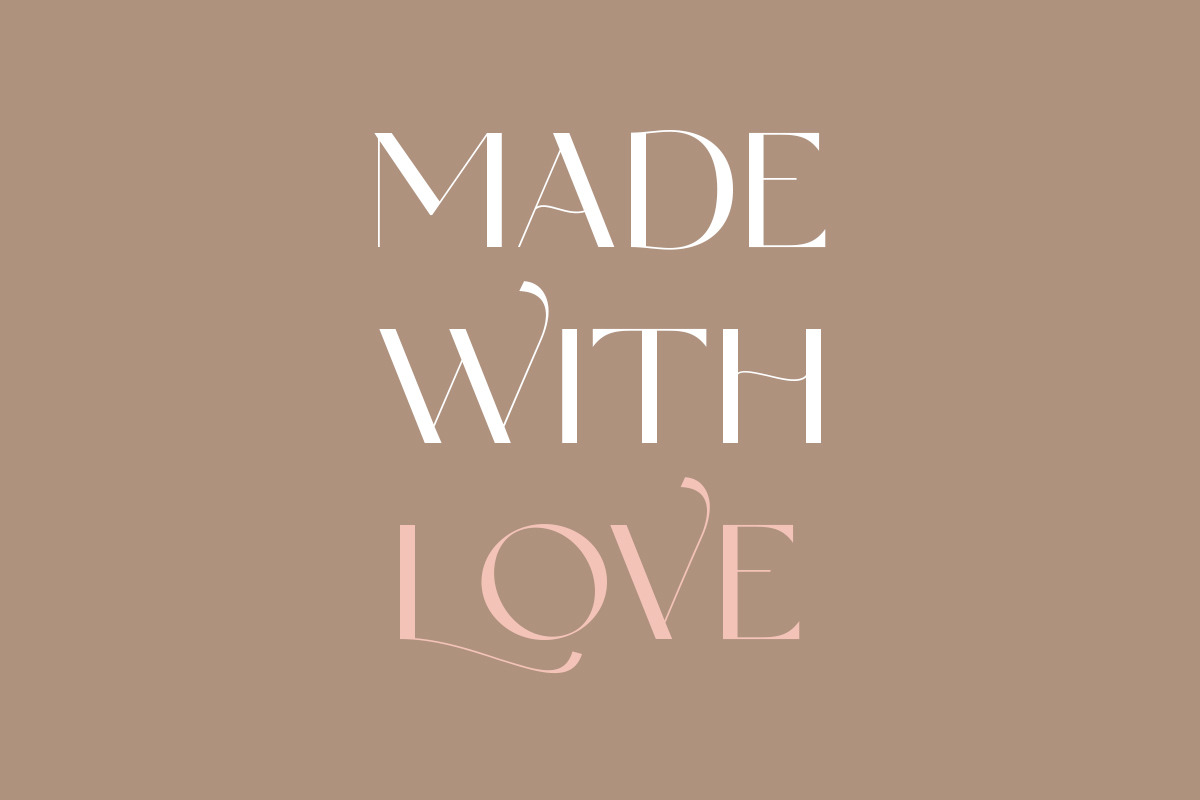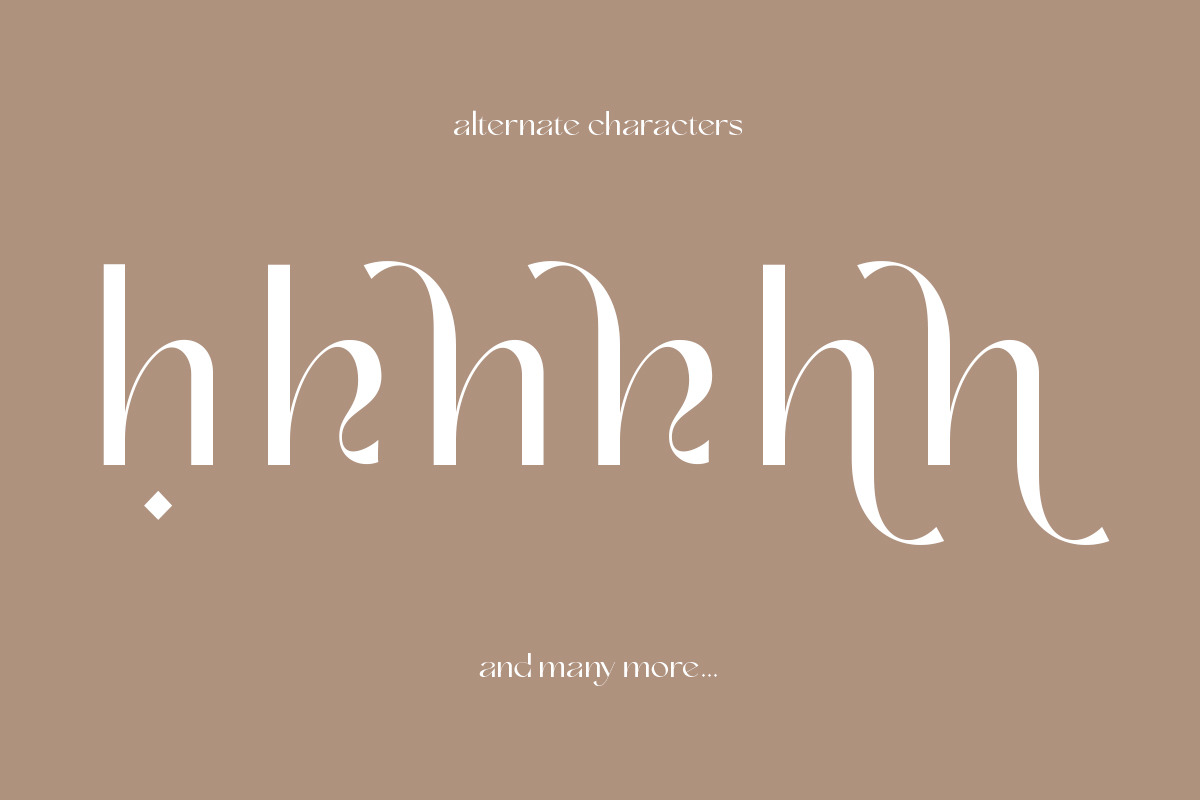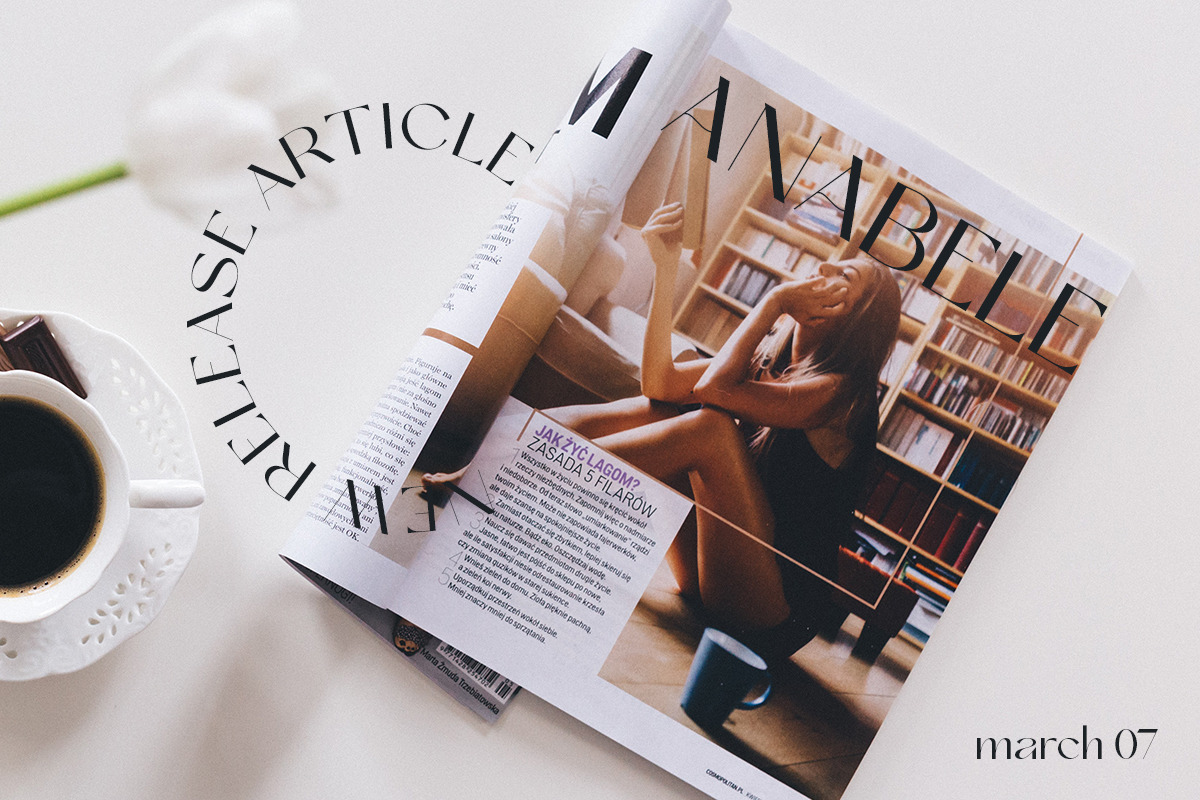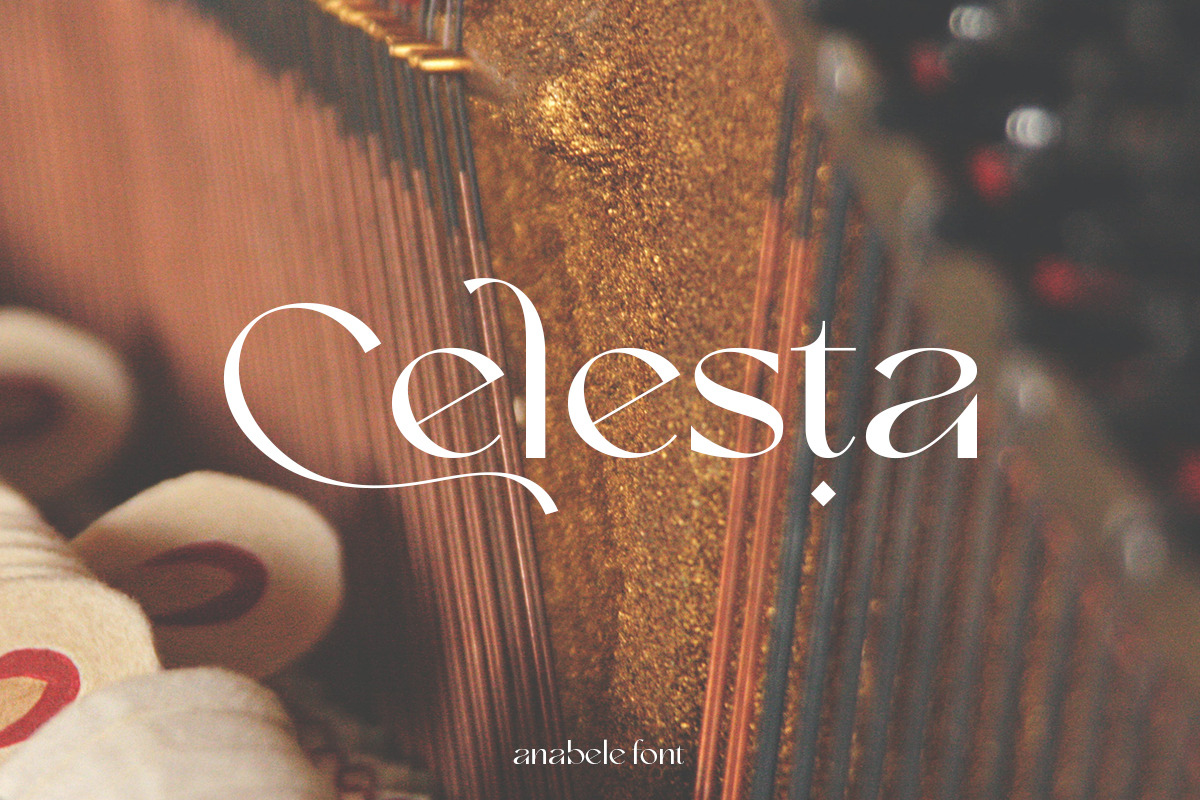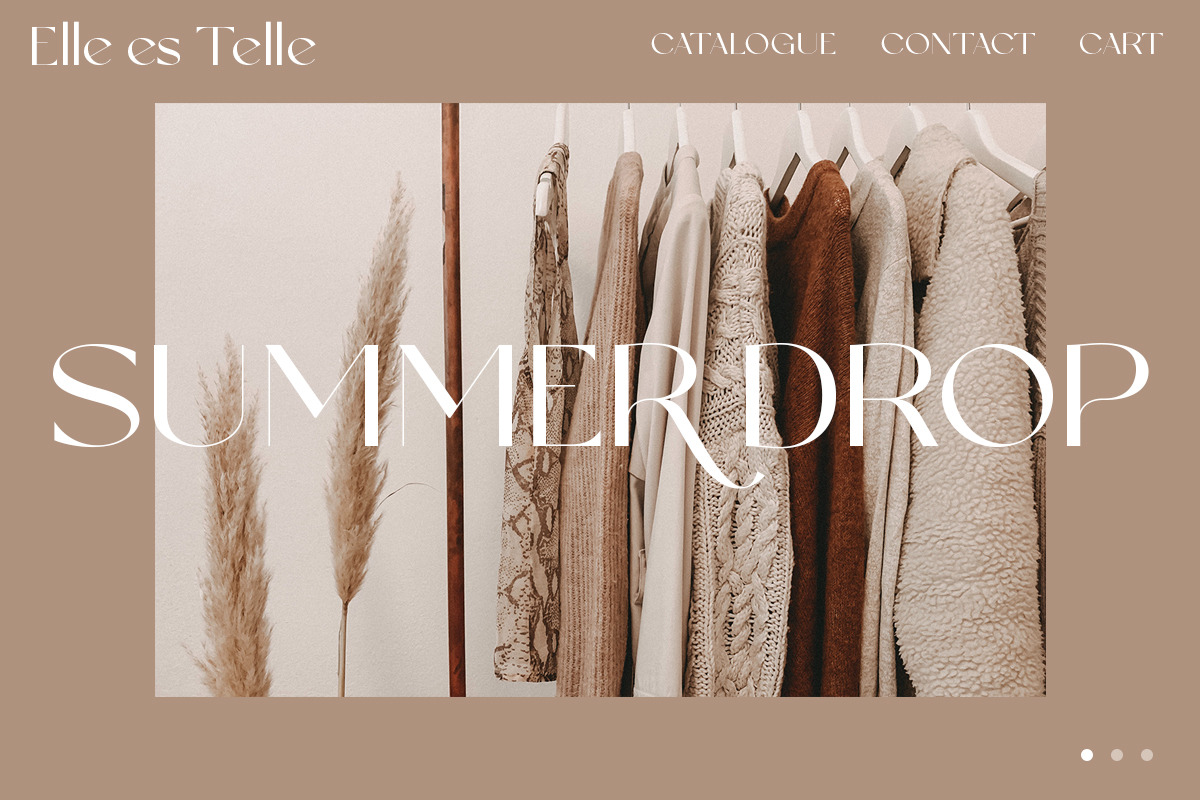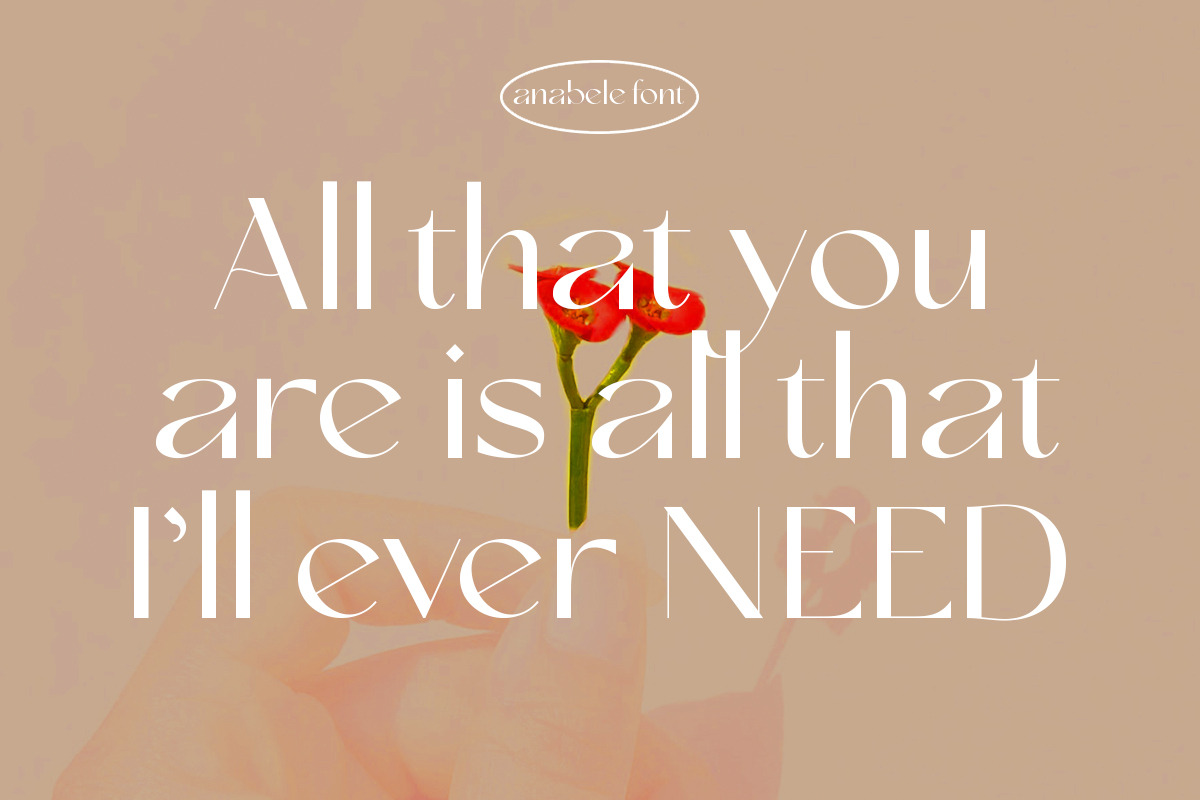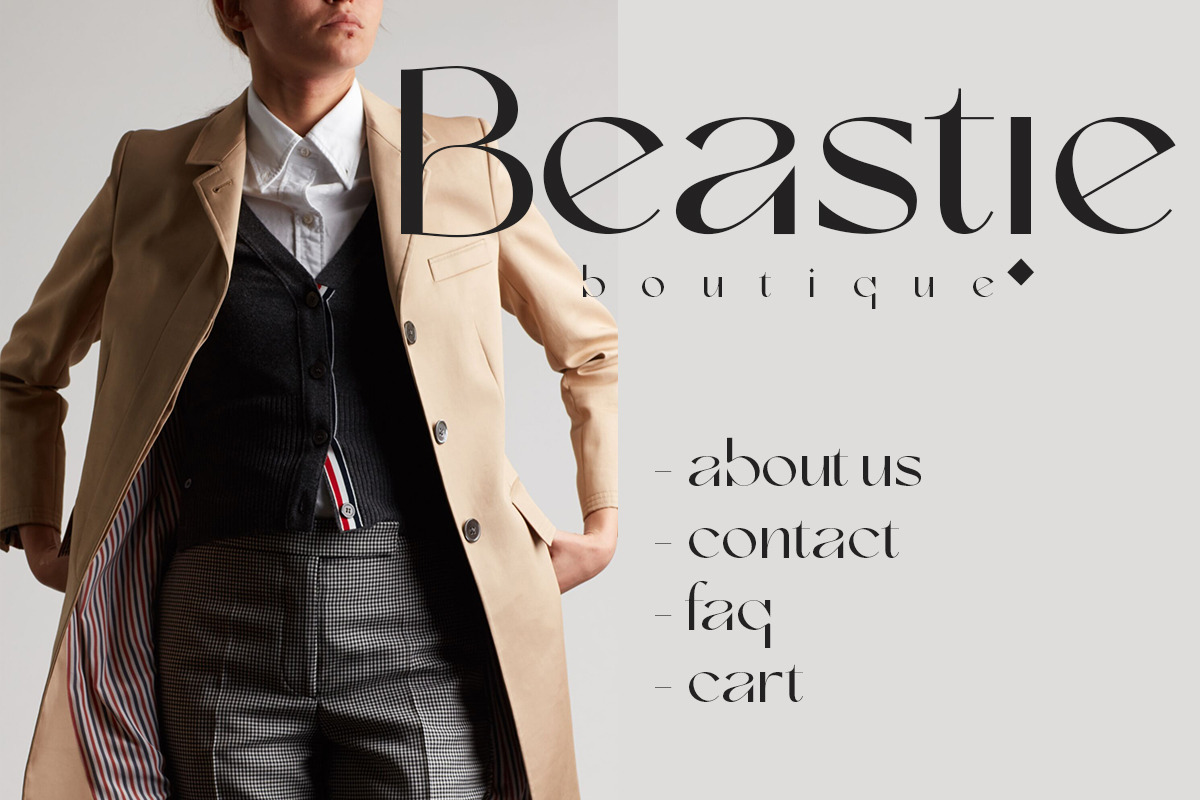
Anabele | Modern Stylish
Anabele fonts includes uppercase letters, lowercase letters, numerals, a large range of punctuation. Serif font with modern stylish style include alternate. Created for poster, web design, branding, illustrations, badges and some other works.